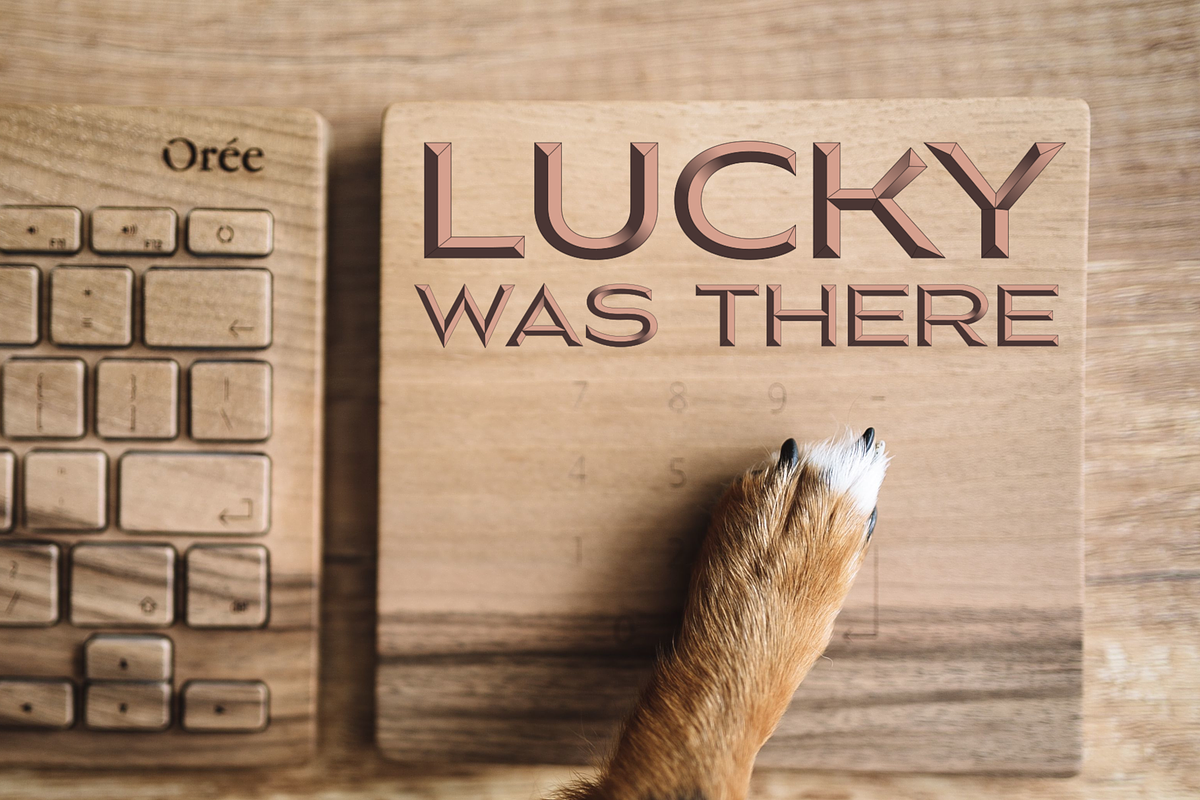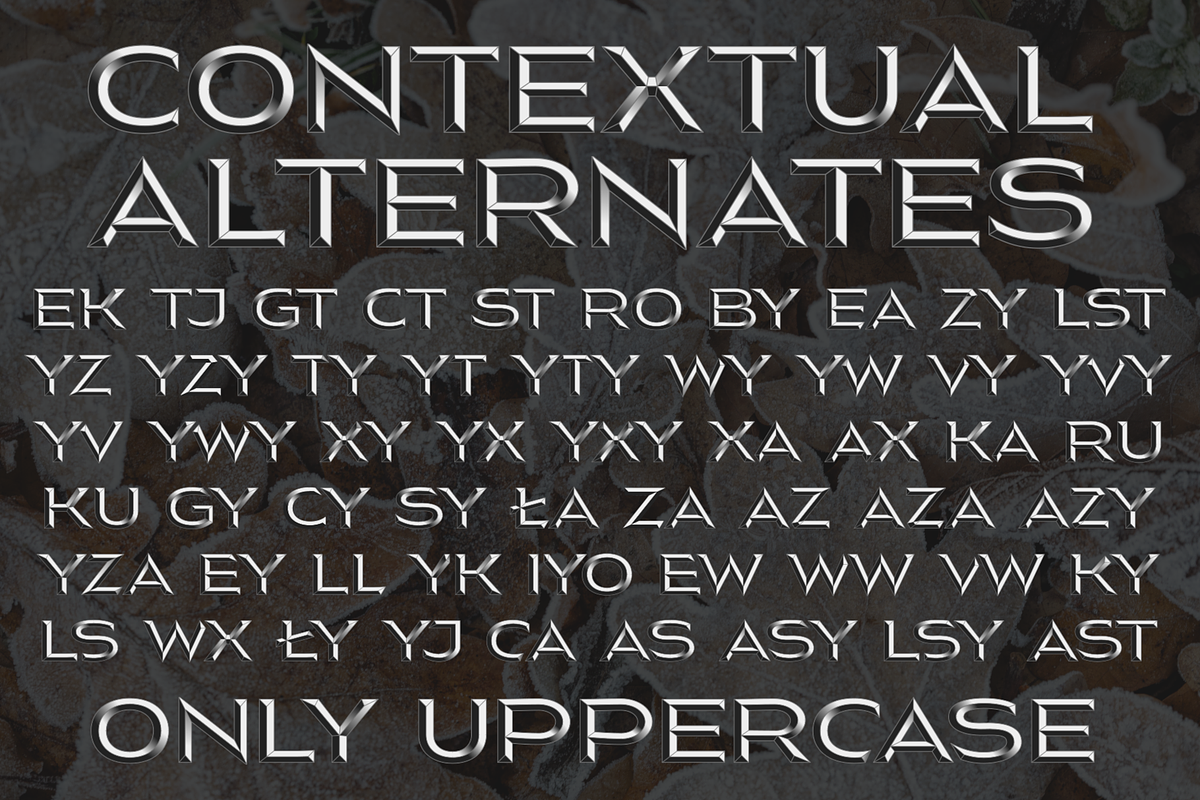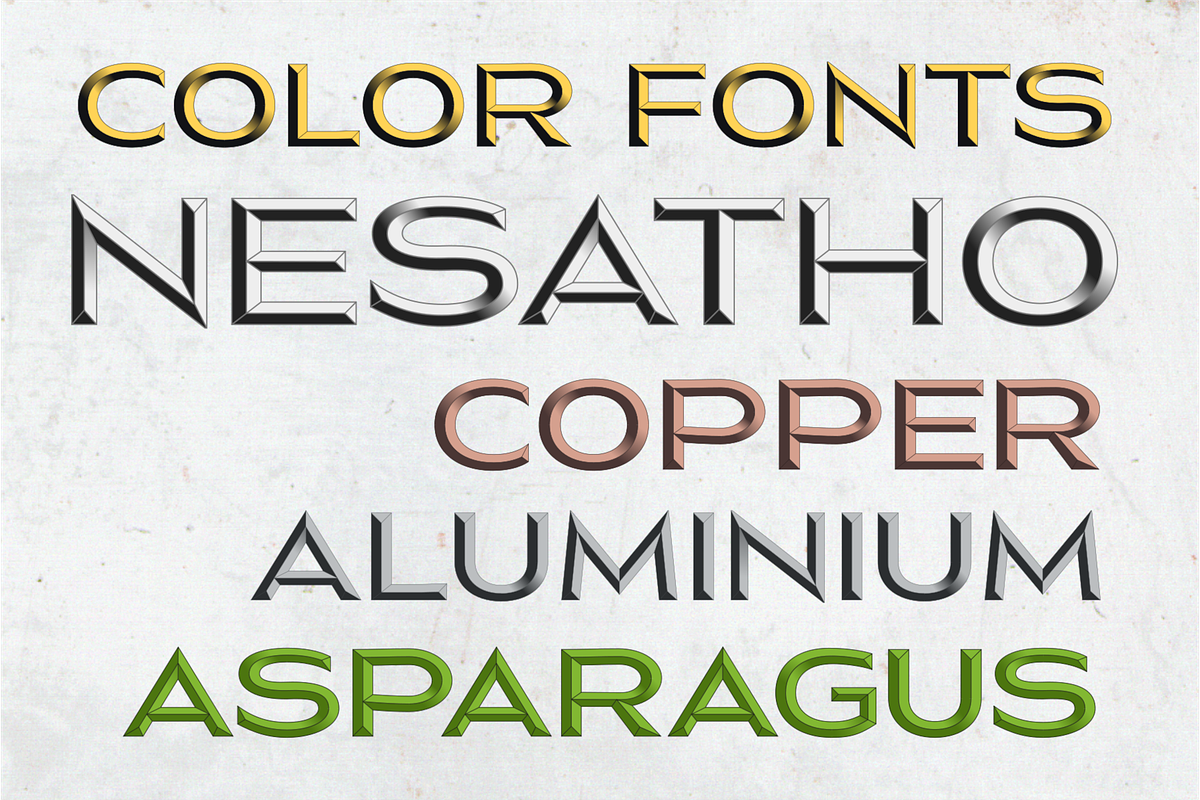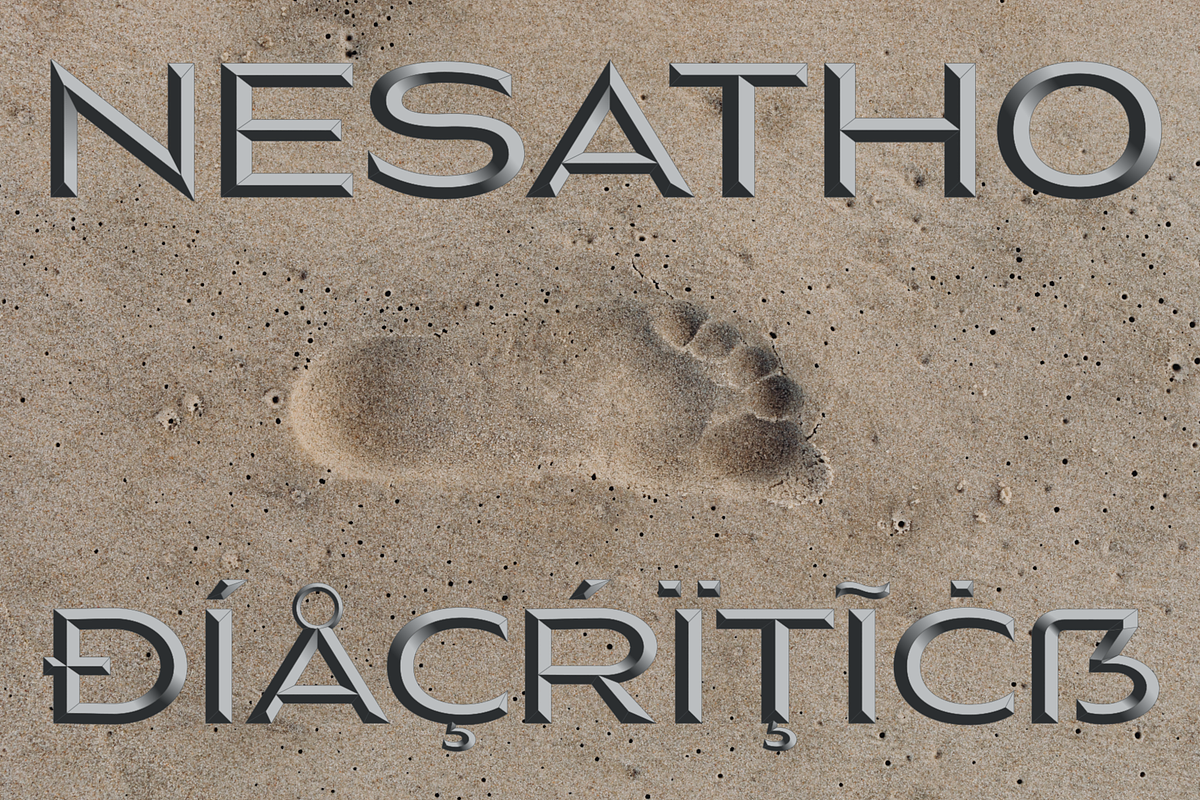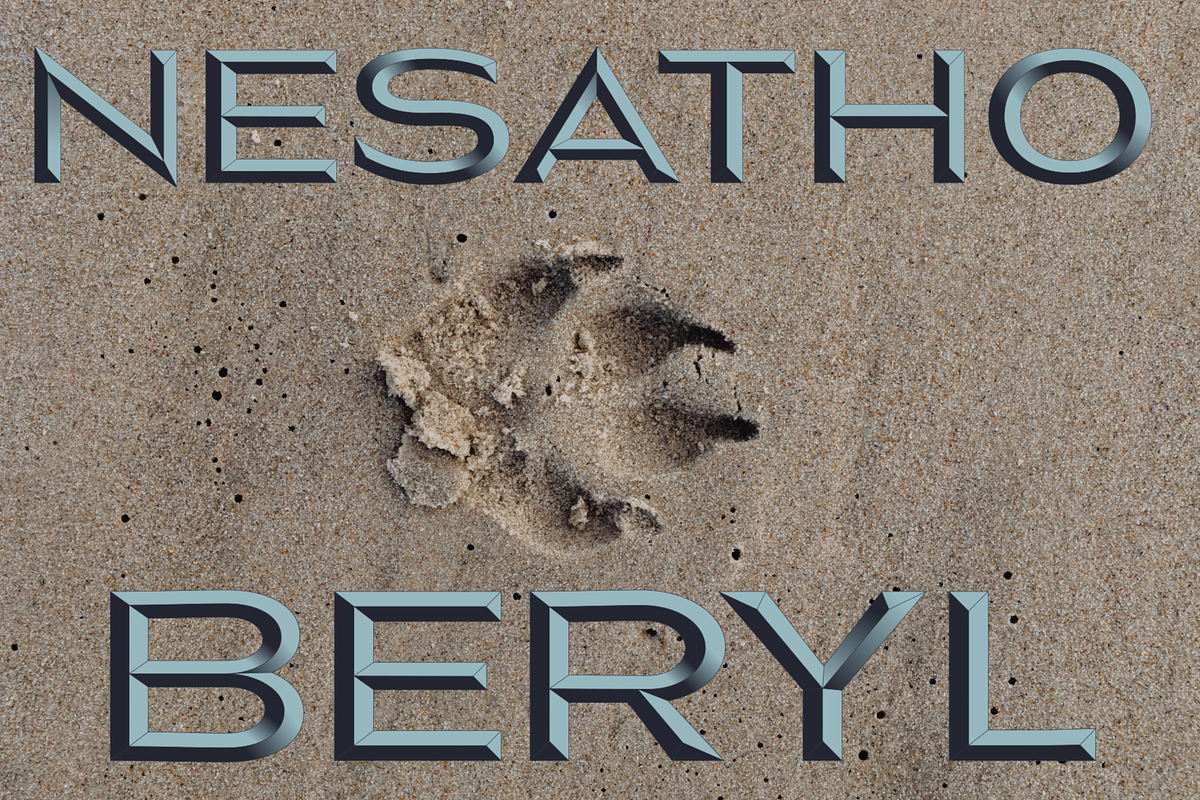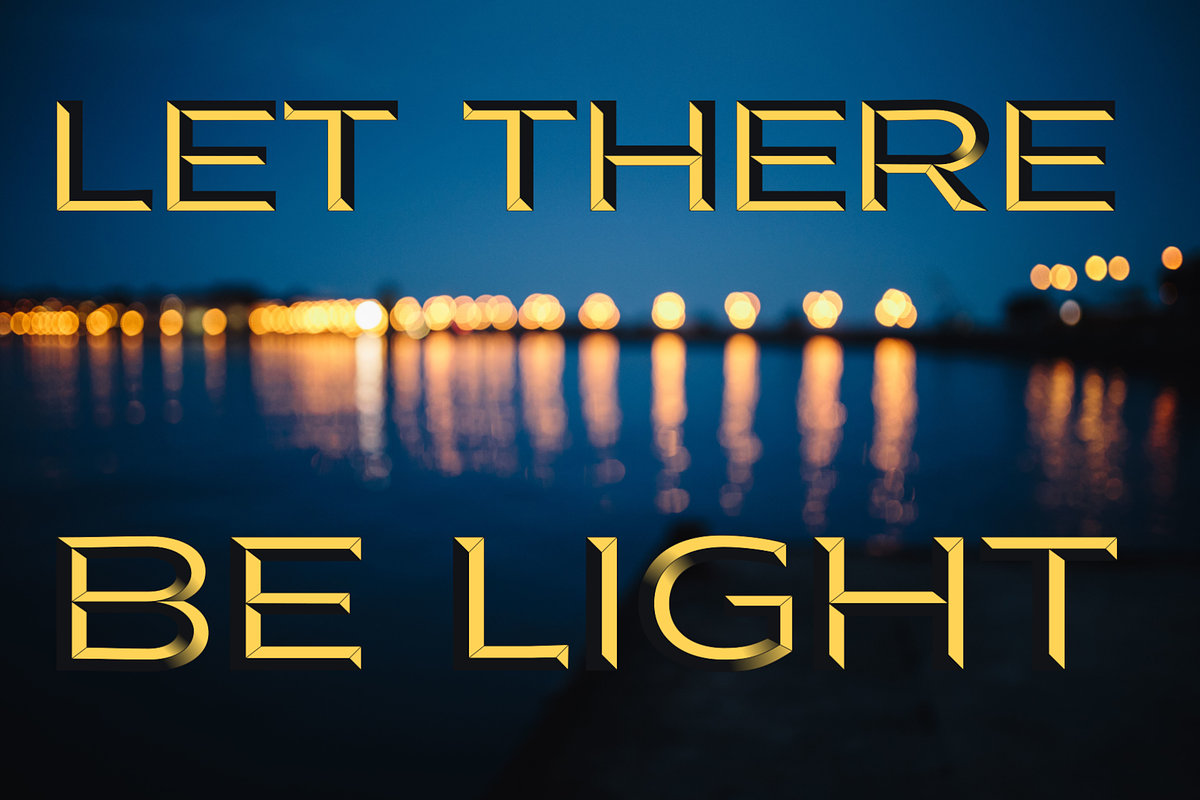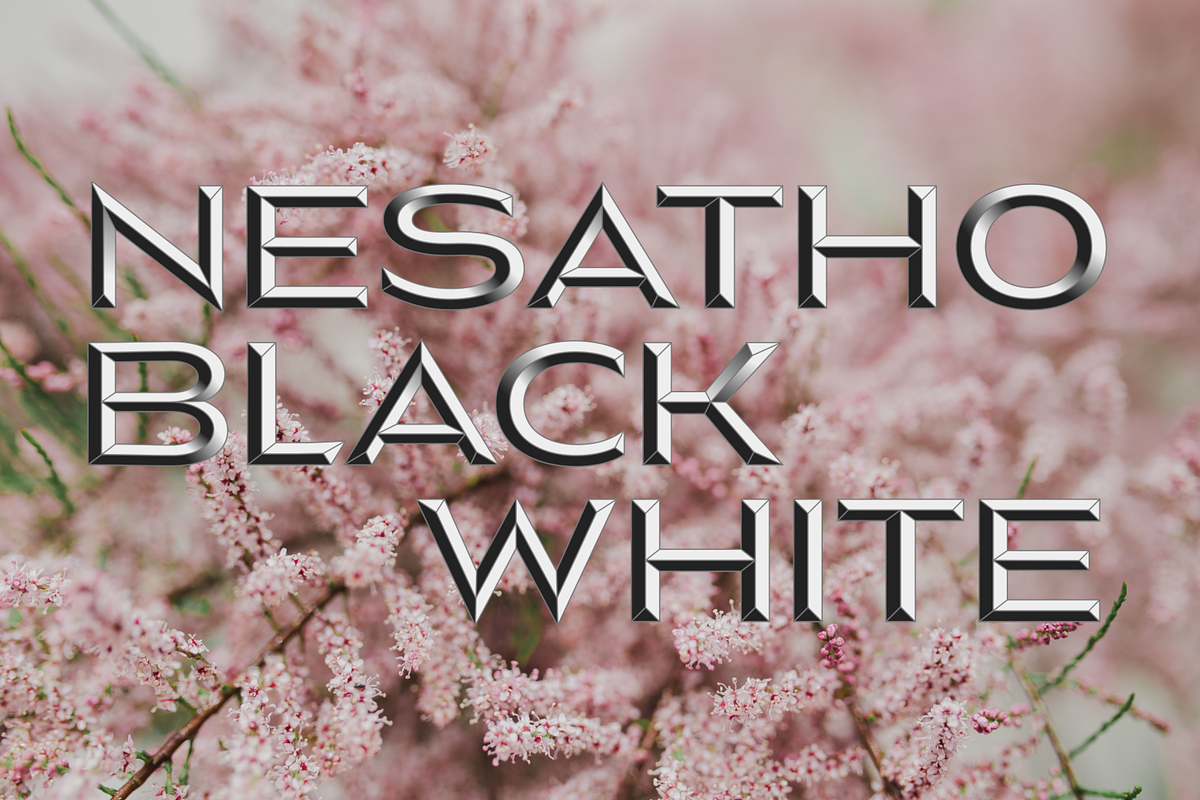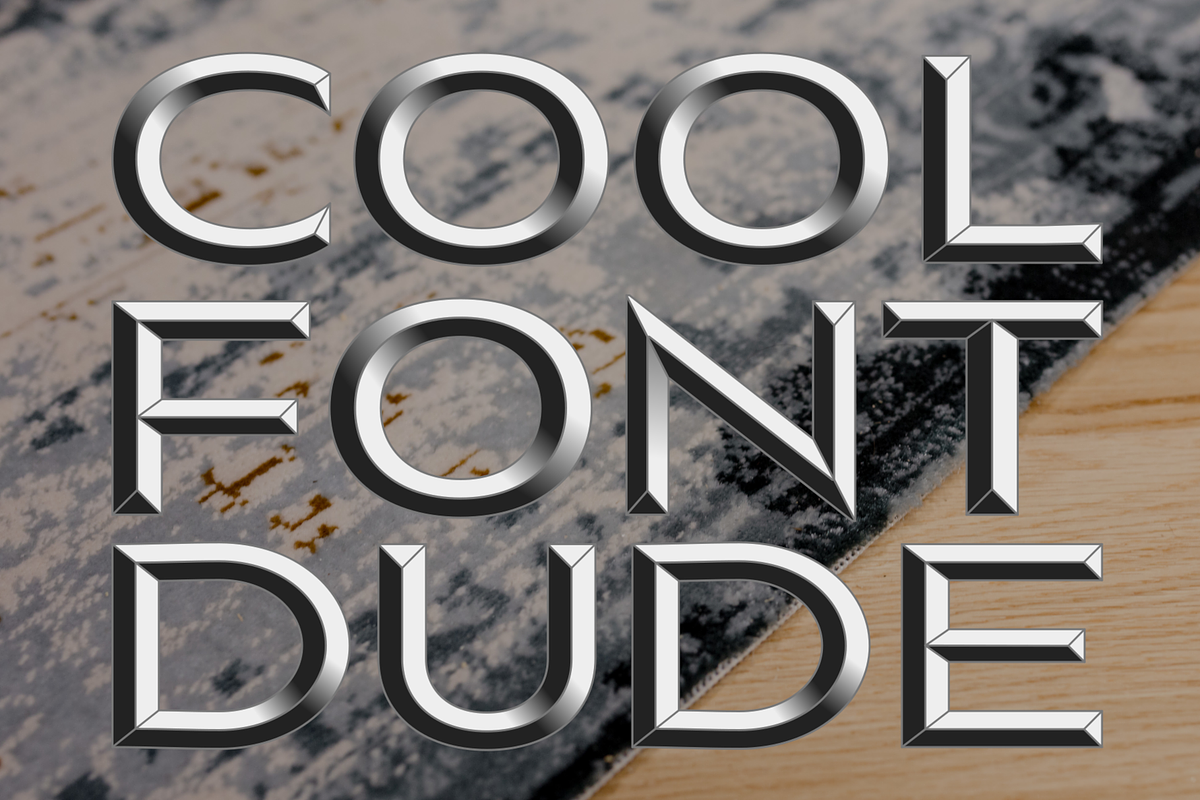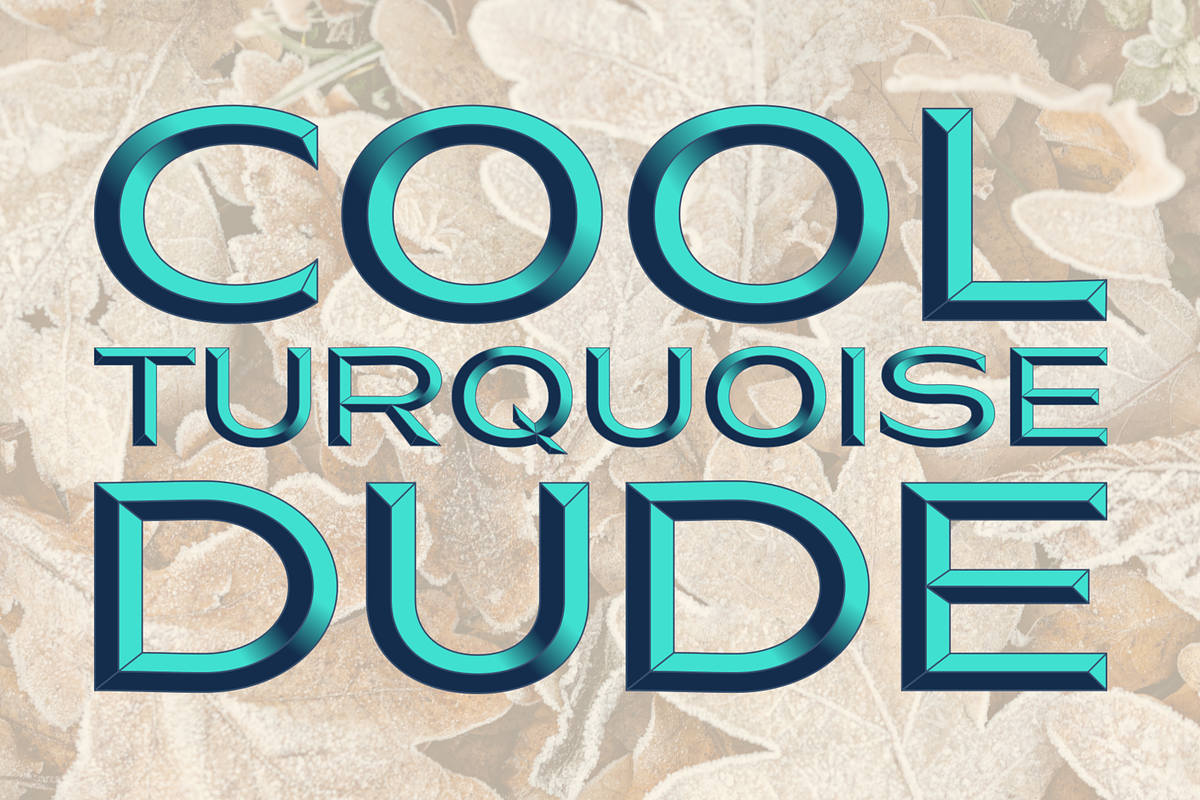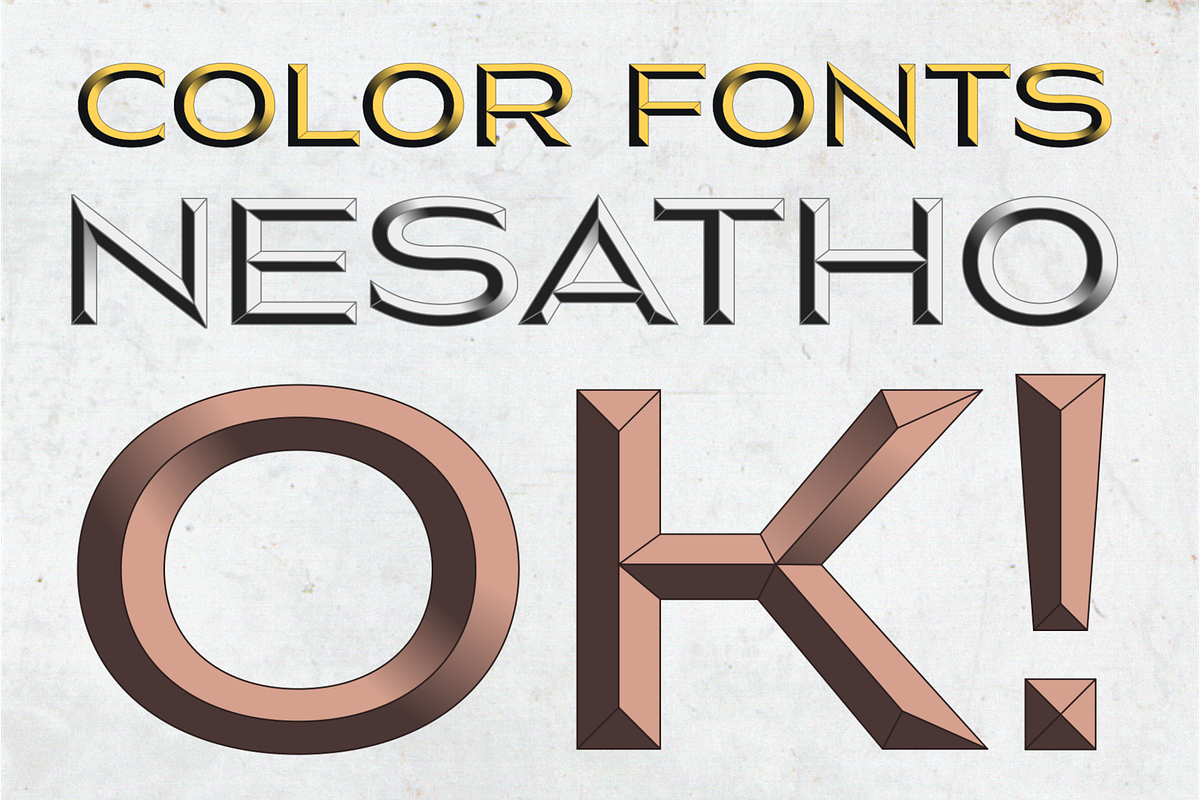
Nesatho OK
Color fonts family Resatho OK:
- Almond
- Black&White and Black&White2
- Beryl
- Aluminium
- Copper
- Asparagus
- Turquoise
- Light and Light Inverted
with full vector glyphs, gradients and automatic contextual alternates for UPPERCASE . Tip: play with upperCASe and lowerCAse!